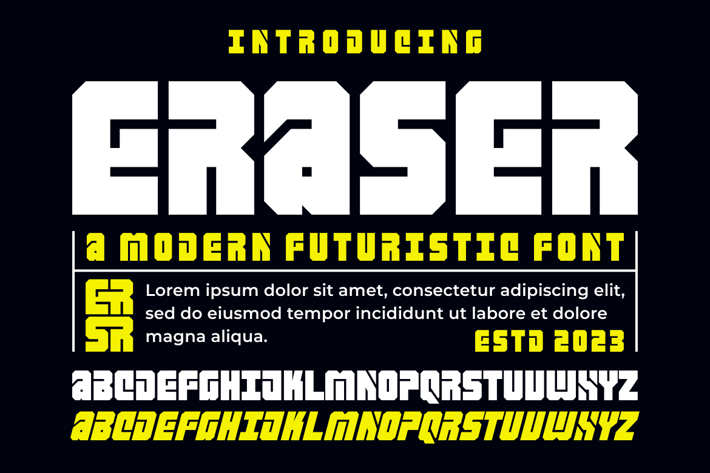
ERASER FONT
Introducing our new product ERASER FONT - Modern Font
ERASER FONT - Modern Font is a bold and authentic display font. The font is suitable for any branding project like logo, t-shirt printing, esport, and many more. outstanding in a wide range of contexts.
Style
Reguler
Italic